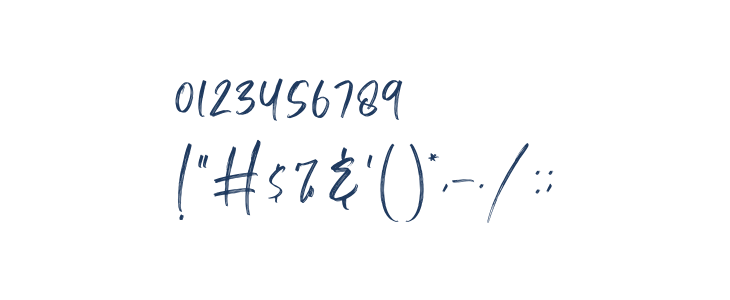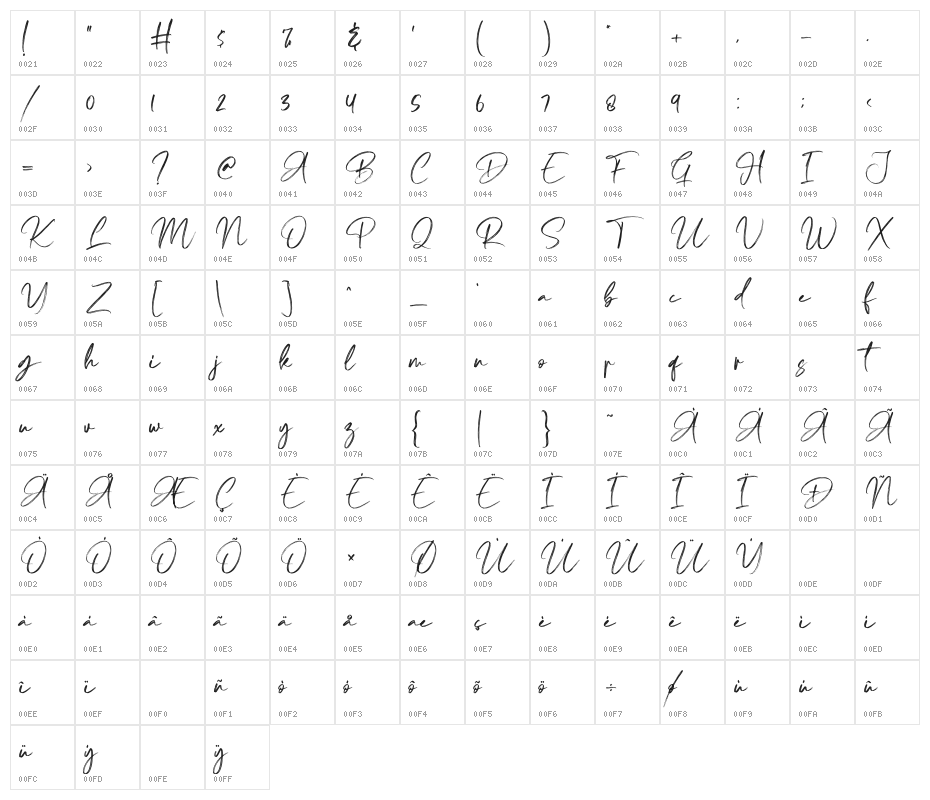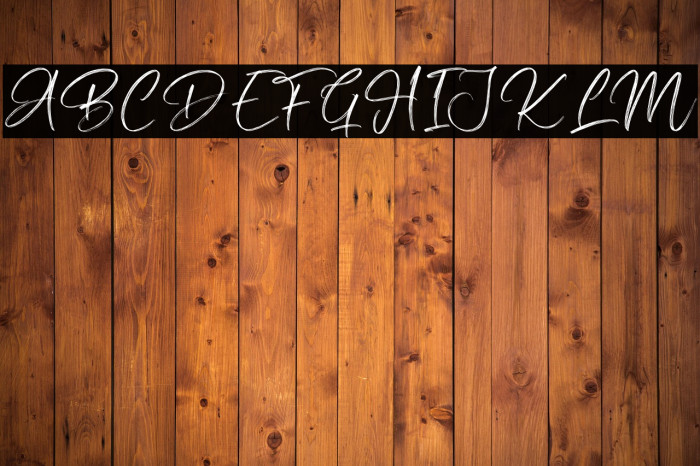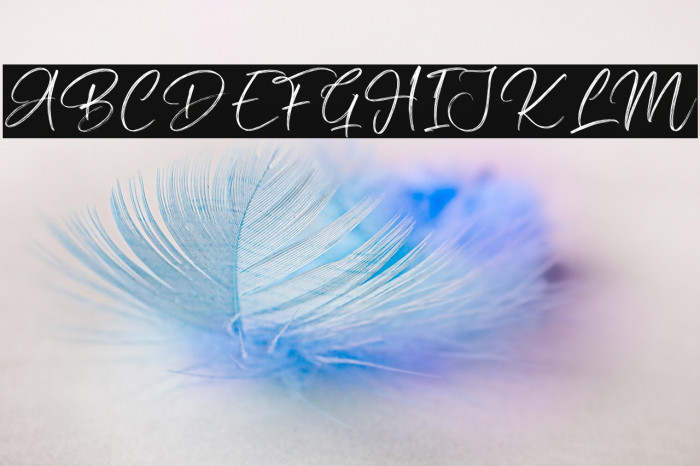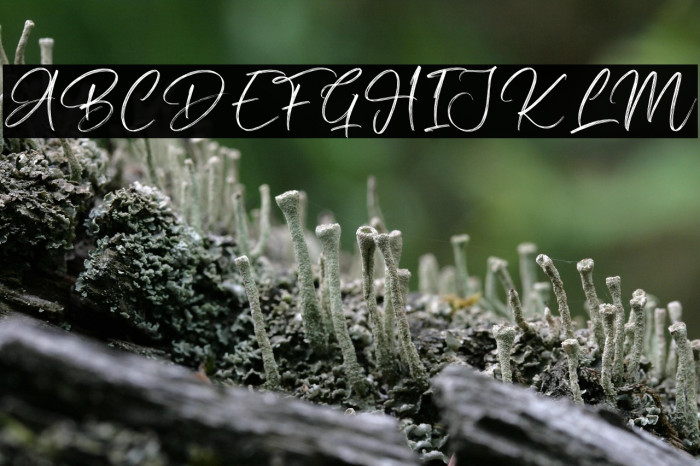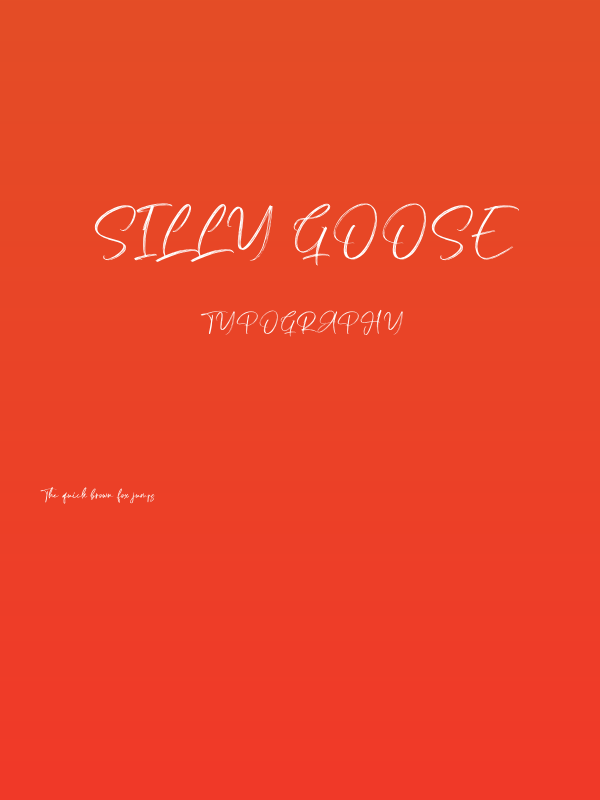
Silly Goose Font
Silly Goose Description
This font features a playful and expressive handwritten style, characterized by its fluid and dynamic strokes. The uppercase letters are elegantly curved with a slight slant, giving them a sense of movement and energy. The lowercase letters maintain a consistent flow, with some letters connecting seamlessly, enhancing the script-like appearance. Numbers and special characters are crafted with the same lively flair, ensuring a cohesive look across all elements. The overall design is both whimsical and sophisticated, making it suitable for creative and artistic projects.